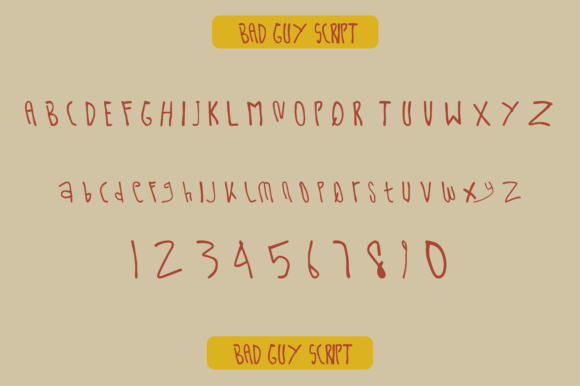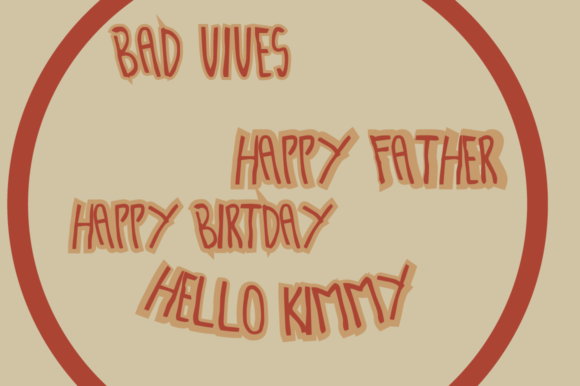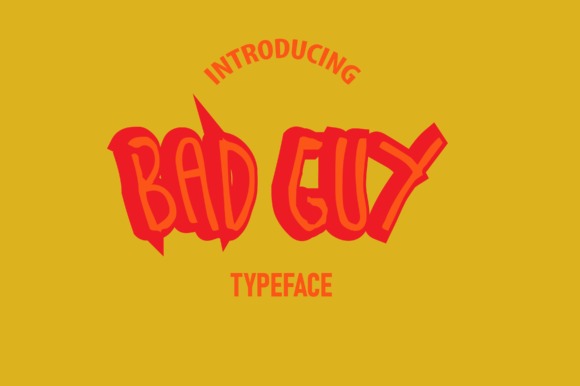
Introducing Bad Guy Font: The Ultimate Display Font for Your Storybook-Inspired Projects
Are you a designer or crafter looking for a unique and captivating font to elevate your projects? Look no further than Bad Guy Font, an authentic display font that is sure to add a touch of vintage whimsy to any design. With its distinctive and eye-catching style, Bad Guy Font is perfect for anyone seeking to create storybook-inspired projects that are both nostalgic and visually stunning.
The Charm of Bad Guy Font
Bad Guy Font boasts a charming, vintage aesthetic that is reminiscent of classic storybooks and fairy tales. Its unique blend of elegant and playful elements makes it an ideal choice for designers and crafters who want to add a touch of magic to their projects. Whether you’re working on a children’s book, a craft project, or a marketing campaign, Bad Guy Font is sure to captivate your audience and leave a lasting impression.
Key Features of Bad Guy Font
- Authentic Display Font: Bad Guy Font is a genuine display font that is designed to make a statement. Its bold and eye-catching style is perfect for headlines, titles, and other prominent design elements.
- Vintage and Whimsical Look: With its nostalgic and playful aesthetic, Bad Guy Font is sure to evoke the feeling of a classic storybook. Its unique blend of elegant and whimsical elements makes it perfect for projects that require a touch of magic and wonder.
- Highly Versatile: Bad Guy Font is incredibly versatile and can be used on a wide range of projects, from children’s books and craft projects to marketing campaigns and branding materials.
- Easily Readable: Despite its bold and ornate style, Bad Guy Font is surprisingly easy to read, making it perfect for use in both digital and print applications.
Using Bad Guy Font in Your Projects
Bad Guy Font is incredibly easy to use and can be applied to a wide range of projects. Here are just a few ideas to get you started:
- Children’s Books: Bad Guy Font is perfect for children’s books, adding a touch of magic and wonder to your story. Use it for titles, headings, and other design elements to create a captivating and immersive reading experience.
- Craft Projects: Add a touch of vintage whimsy to your craft projects with Bad Guy Font. Use it to create beautiful and eye-catching titles, labels, and other design elements for your scrapbooking, card making, and other craft projects.
- Marketing Campaigns: Bad Guy Font is also perfect for marketing campaigns that require a touch of nostalgia and magic. Use it to create eye-catching headlines, titles, and other design elements that are sure to capture your audience’s attention.
Tips for Getting the Most Out of Bad Guy Font
Here are a few tips for getting the most out of Bad Guy Font:
- Experiment with Different Sizes and Colors: Bad Guy Font looks great in a variety of sizes and colors. Experiment with different combinations to find the one that works best for your project.
- Pair it with Other Fonts: Bad Guy Font pairs well with a variety of other fonts. Try pairing it with a clean and simple font for a striking contrast.
- Use it to Create Visual Hierarchy: Use Bad Guy Font to create a visual hierarchy in your design. Use it for headings and titles to draw attention to important design elements.
Bad Guy Font is an authentic display font that is sure to add a touch of vintage whimsy to any design. With its charming and eye-catching style, it’s perfect for designers and crafters who want to create storybook-inspired projects that are both nostalgic and visually stunning. Whether you’re working on a children’s book, a craft project, or a marketing campaign, Bad Guy Font is sure to captivate your audience and leave a lasting impression.